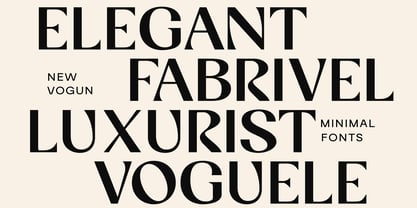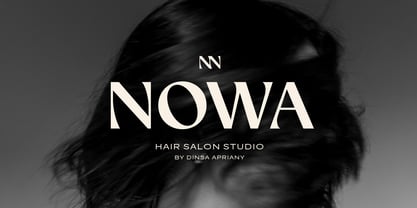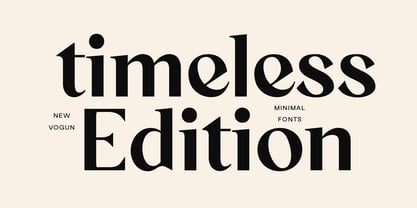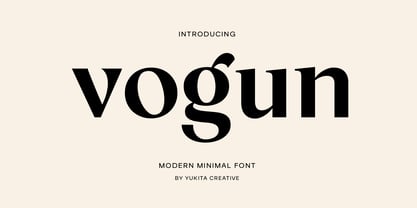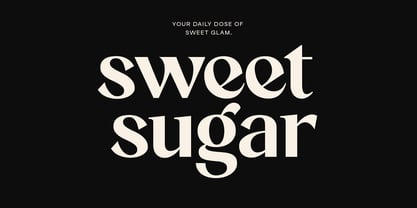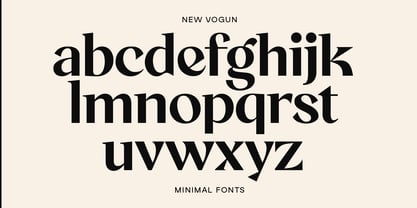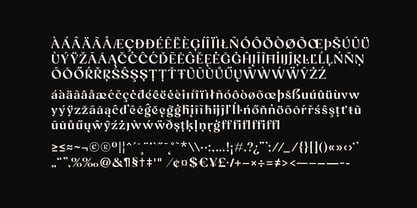
Vogun
by Yukita Creative
The Vogun Font Family was designed by Yukita Creative and published by Yukita Creative. Vogun contains 2 styles and family package options. More about this family
Vogun Minimal Modern Font is a sleek and minimalistic display typeface crafted for modern aesthetics. With its clean lines and balanced proportions, Vogun is perfect for bold, eye-catching designs that demand simplicity and sophistication.
Available in Regular and Italic styles, this versatile font is ideal for branding, headlines, posters, packaging, and contemporary projects.
Vogun delivers striking simplicity with a refined look—perfect for designers who value minimalism without compromising style.